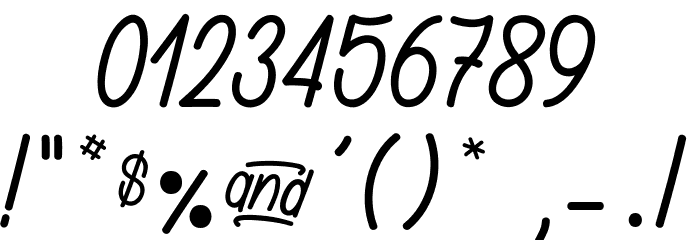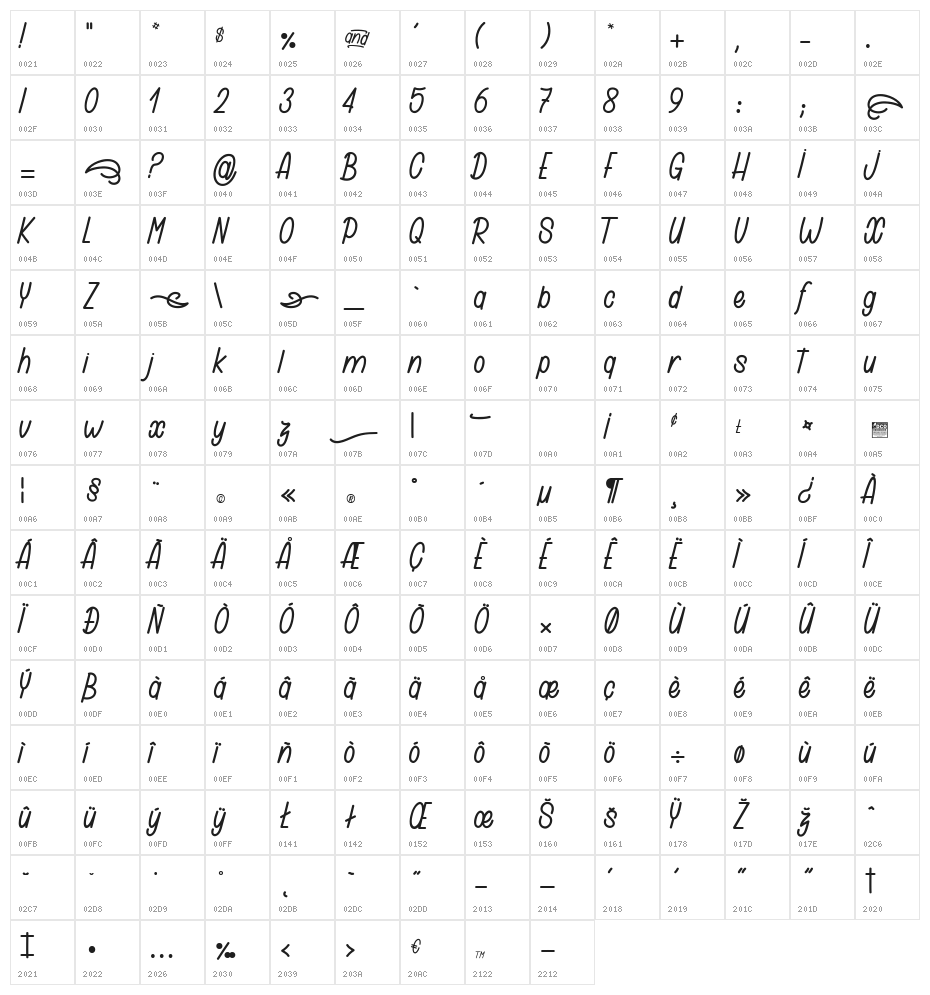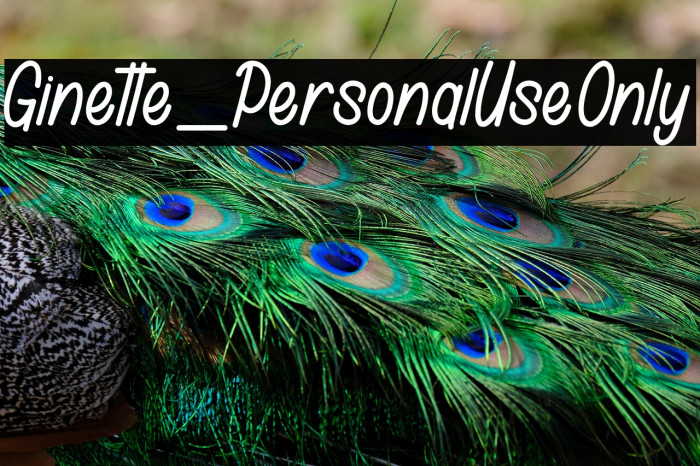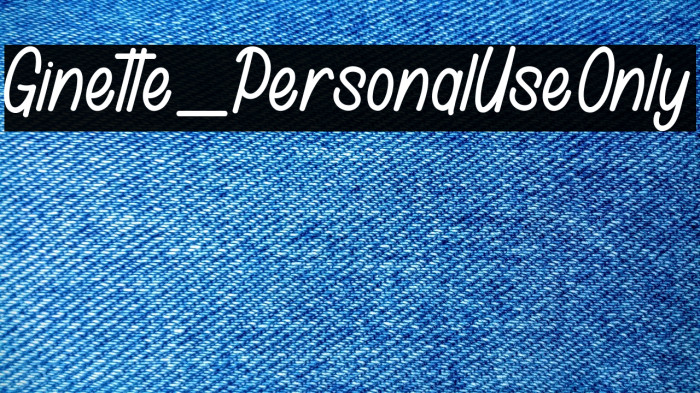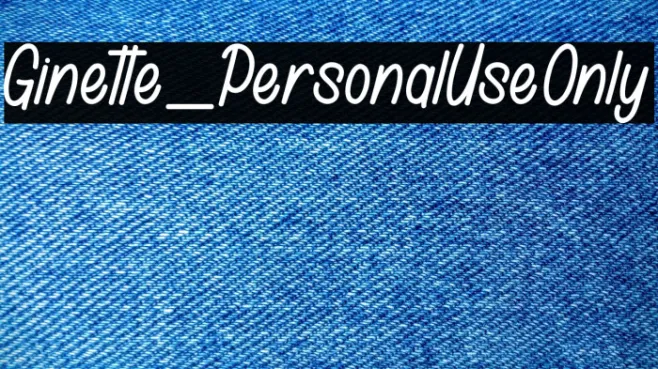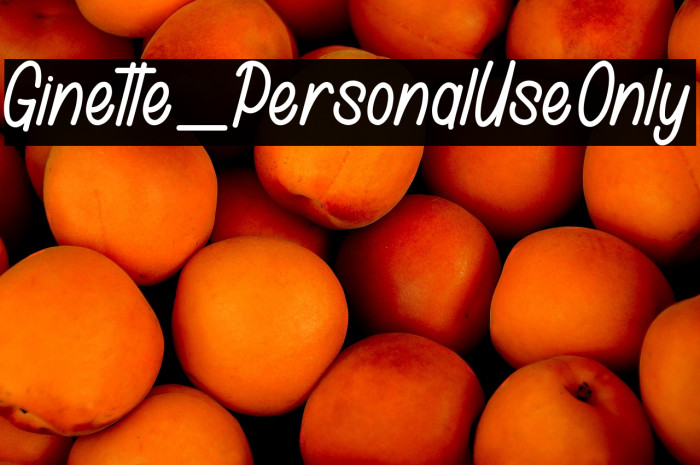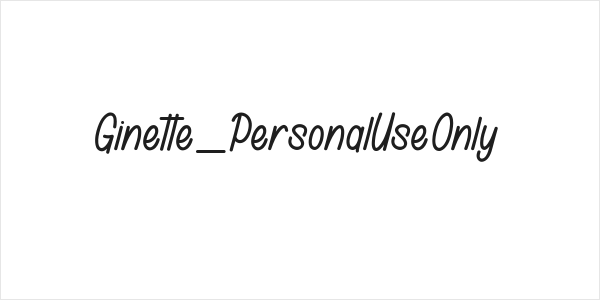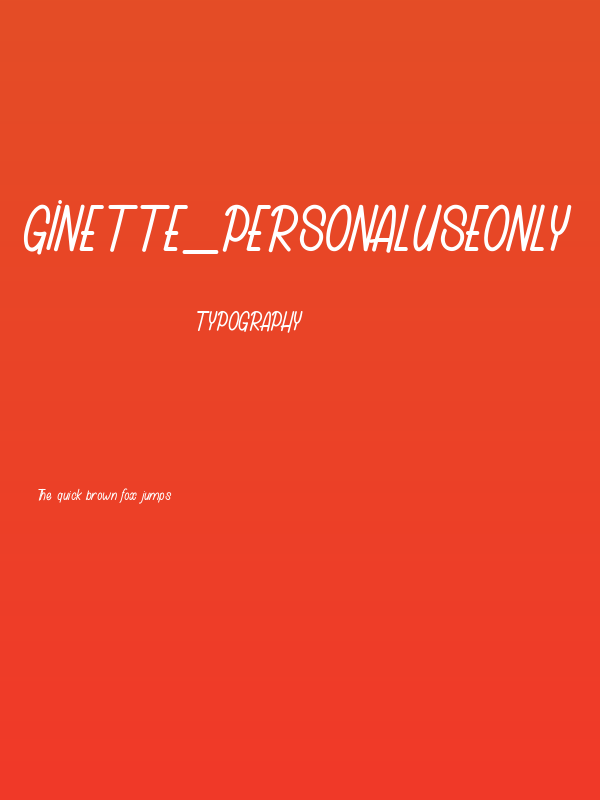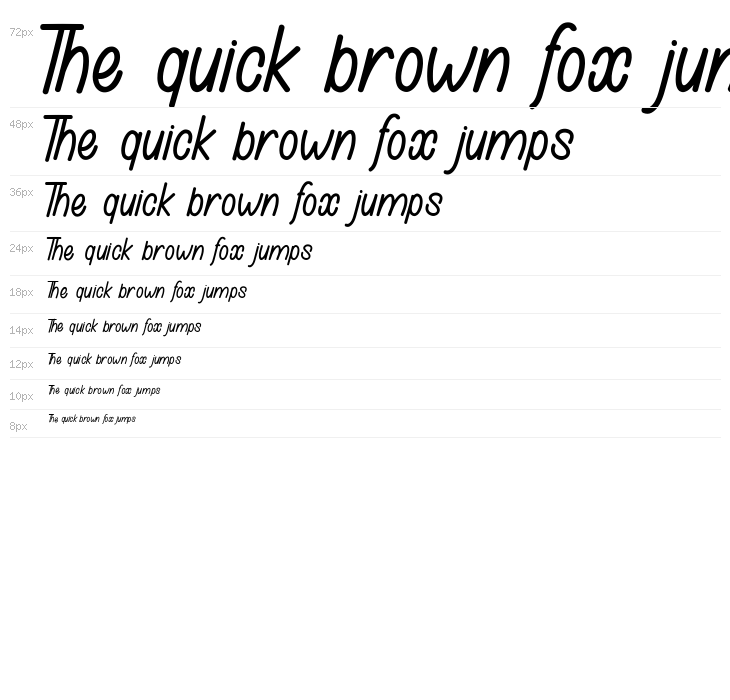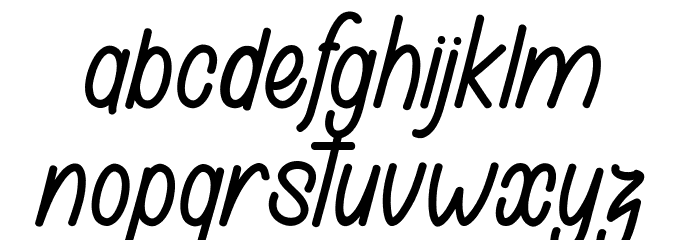
Ginette_PersonalUseOnly Font
Ginette_PersonalUseOnly Description
This font features a playful and casual handwritten style, characterized by its smooth, flowing curves and slightly slanted letters. The uppercase letters are tall and narrow, while the lowercase letters maintain a consistent height, creating a harmonious balance. The numerals are rounded and blend seamlessly with the overall style. Special characters are creatively designed, adding to the font's charm. The font's informal and friendly appearance makes it ideal for projects that require a personal touch.
| Overall Style | Casual and Playful |
| Use Case | Headlines, Personal projects, Creative designs |
| Proposed Projects | Ideal for greeting cards, invitations, personal branding, and creative projects that require a friendly and approachable feel. |